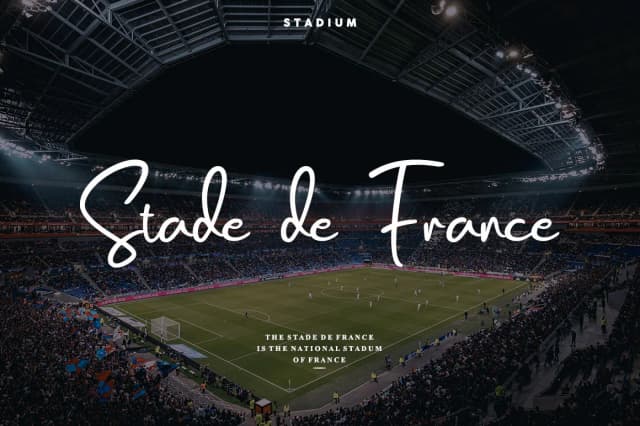
Menulist Font by Emtheen Std. is a refined handwritten script with graceful letterforms and flowing strokes. The typeface captures the warmth of genuine penmanship while maintaining clean, legible proportions that work across various applications. With its signature-like character, this font brings an authentic, personal touch to any project requiring a human-crafted aesthetic.
The design features elegant swashes that add dimensionality to display applications. This makes it particularly suited for restaurant menu designs where an upscale, handwritten quality enhances perceived value, personalized thank you cards that demand genuine visual warmth, and handcrafted wedding stationery seeking that carefully considered, bespoke appearance. The script also excels in artisanal packaging labels and custom social media graphics where authenticity matters. Its minimalist approach ensures letterforms remain distinct and readable, preventing the visual heaviness that often plagues ornate scripts.
Whether you're designing intimate stationery or working on branded materials that benefit from a personal connection, Menulist Font delivers consistency without sacrificing character. The typeface's balanced proportions make it viable across point sizes and formats. Experience the distinctive appeal of this handwritten script by accessing it on Creative Fabrica.
- Elegant, Flowing, Menulist Script
Menulist Font is a script font that shines as a display or heading face. Pair it with a clean sans-serif or serif font for body text β the contrast creates a clear hierarchy while the two styles stay balanced and easy to read.
Menulist Font
by Emtheen Std.